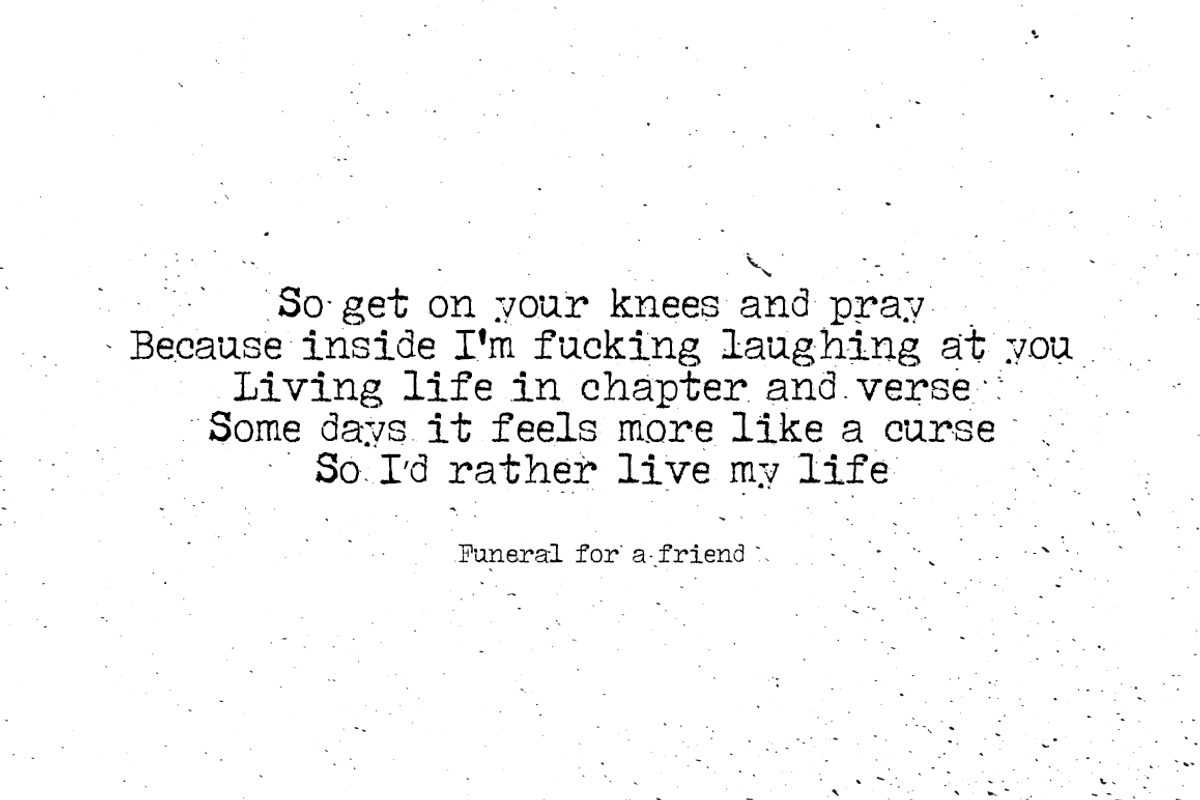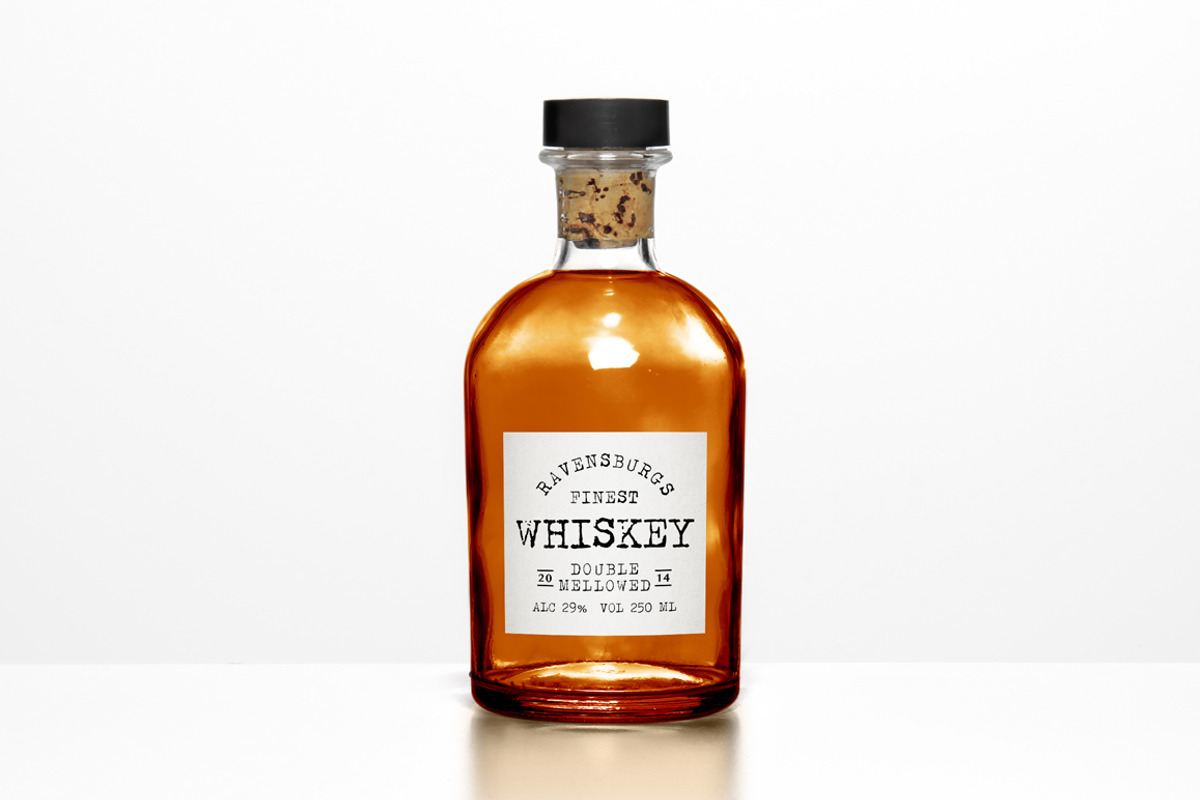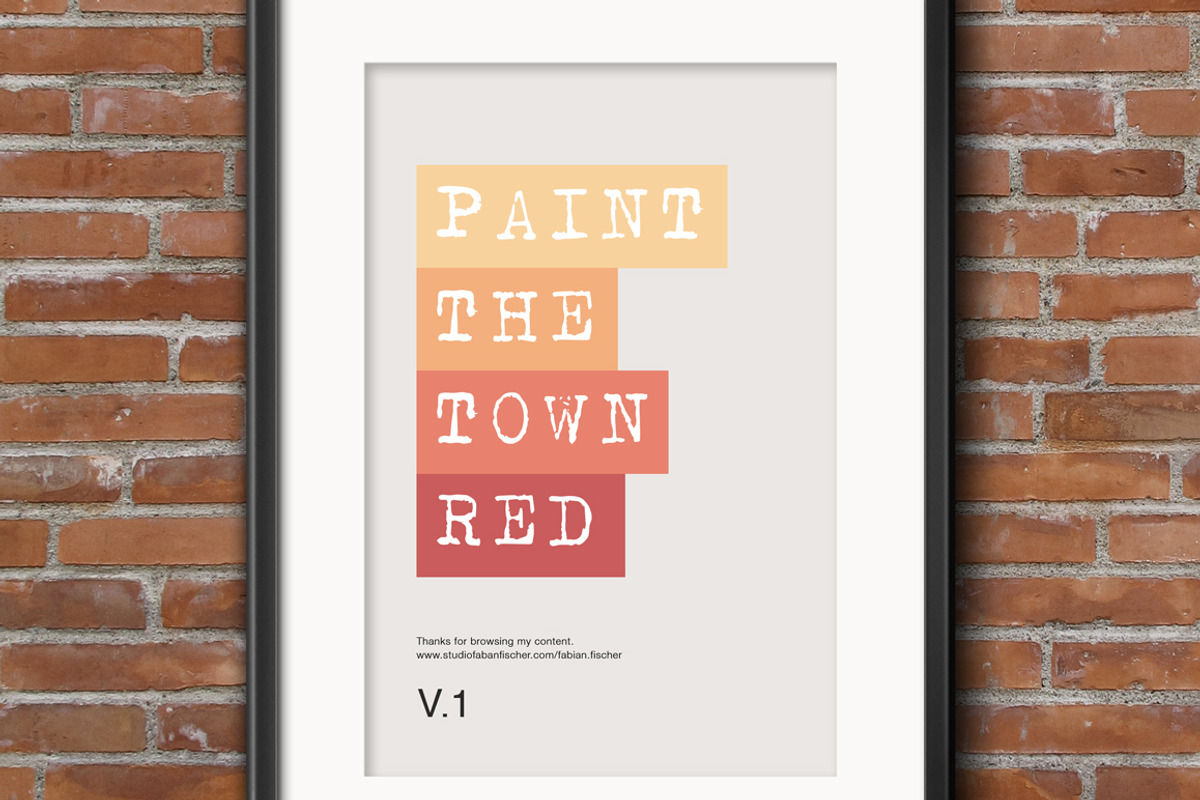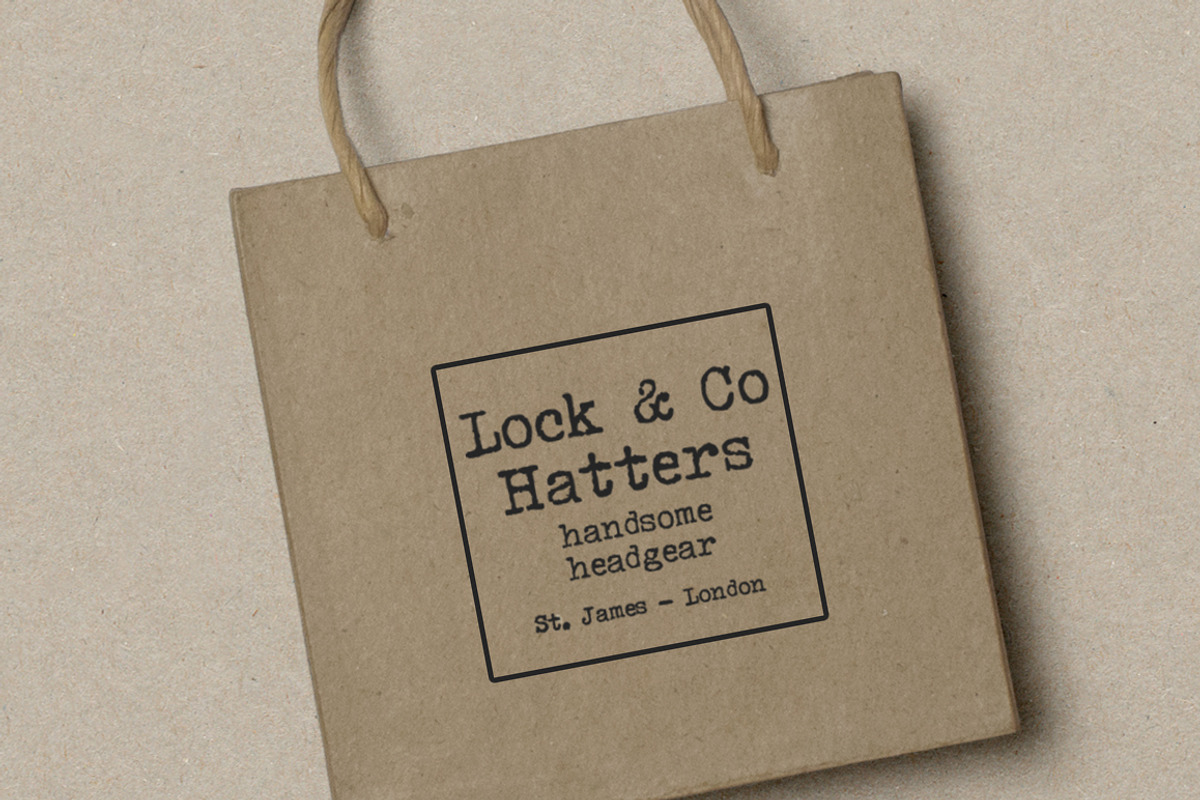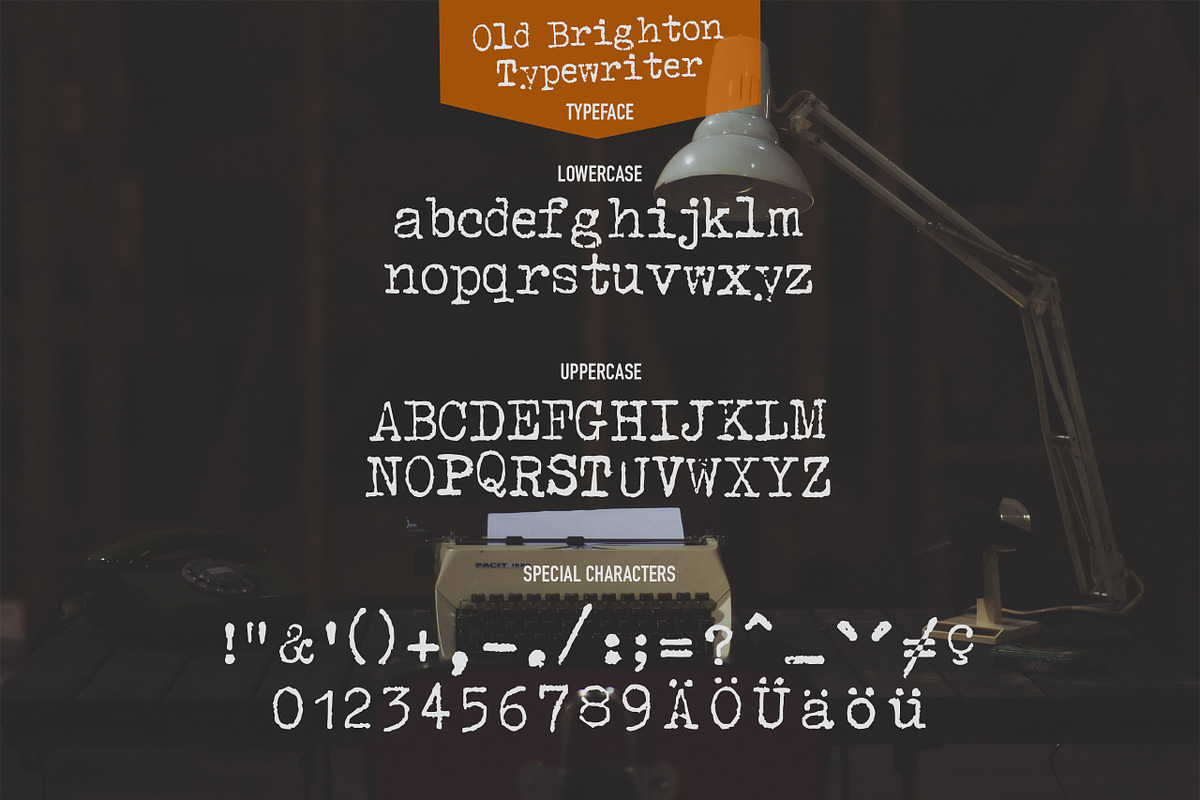
Old Brighton Typewriter - Font
Old Brighton Typewriter - Font by Studio FabianFischer is a font selected for branding, posters, packaging, typography.
- Typed are the uppercase, lowercase and special letters for a fancy handcrafted look.
Old Brighton Typewriter - Font by Studio FabianFischer fits naturally into Branding, posters, packaging, typography.